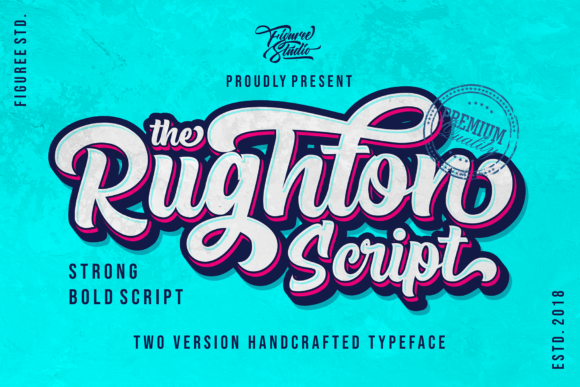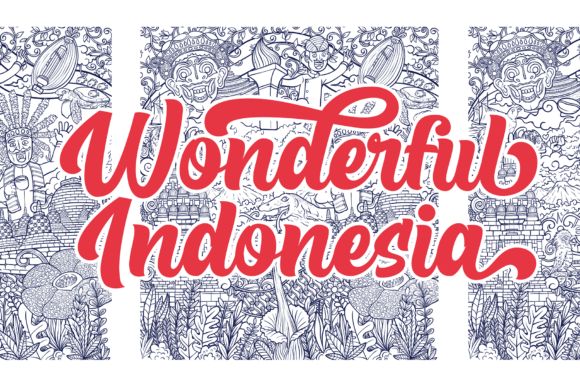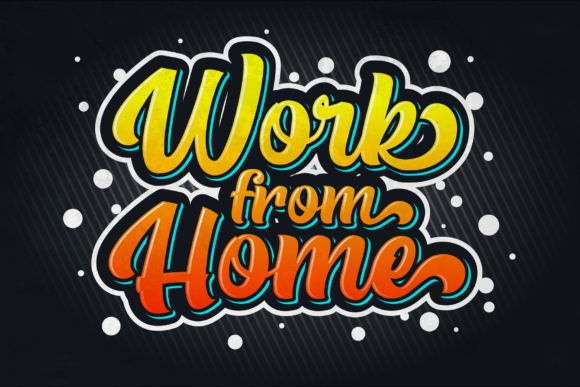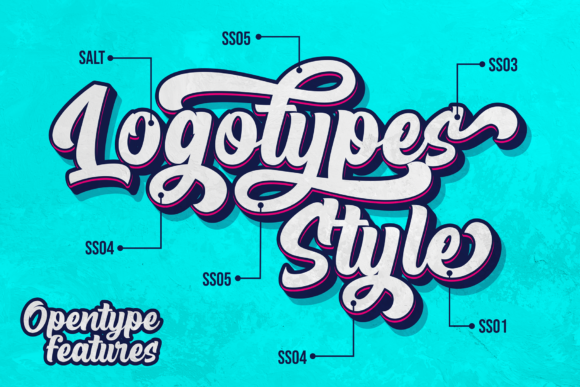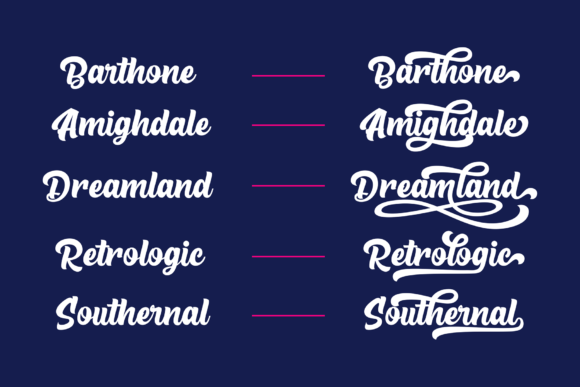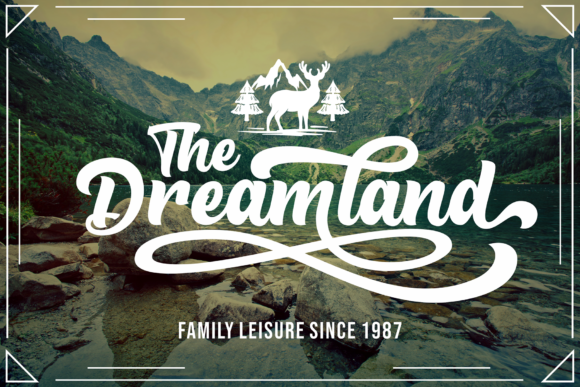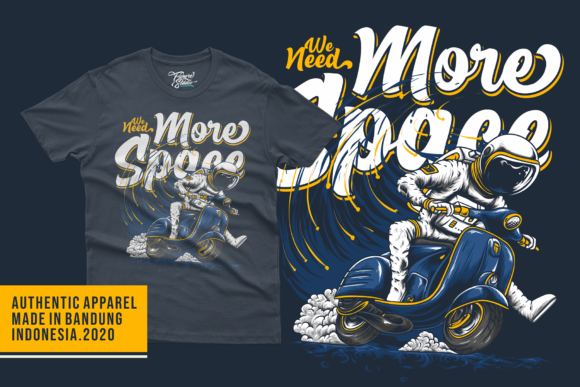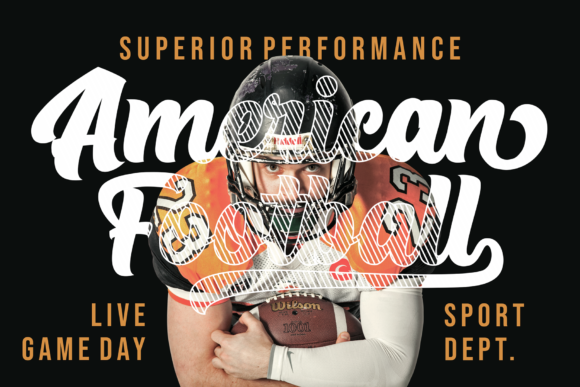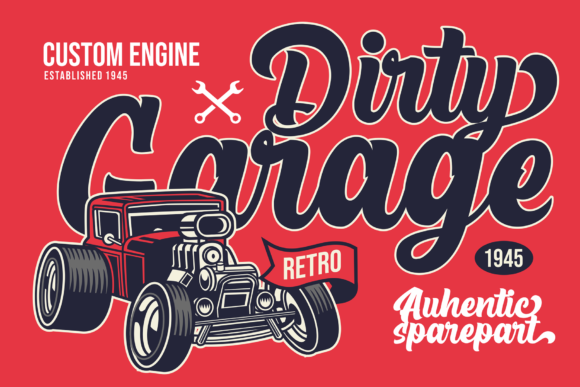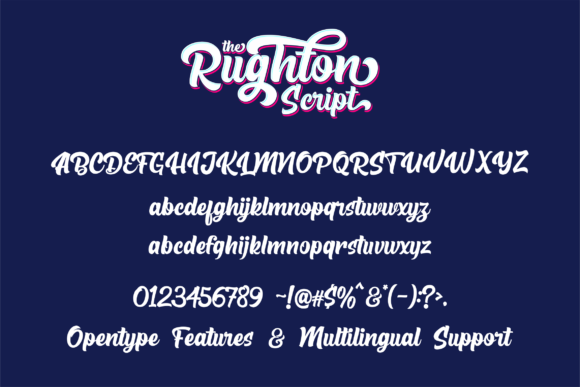
The Rughton Font
About The Rughton Font
The Rughton Script is a strong and bold script font. Use this gorgeous and unique font to bring any DIY project to life!